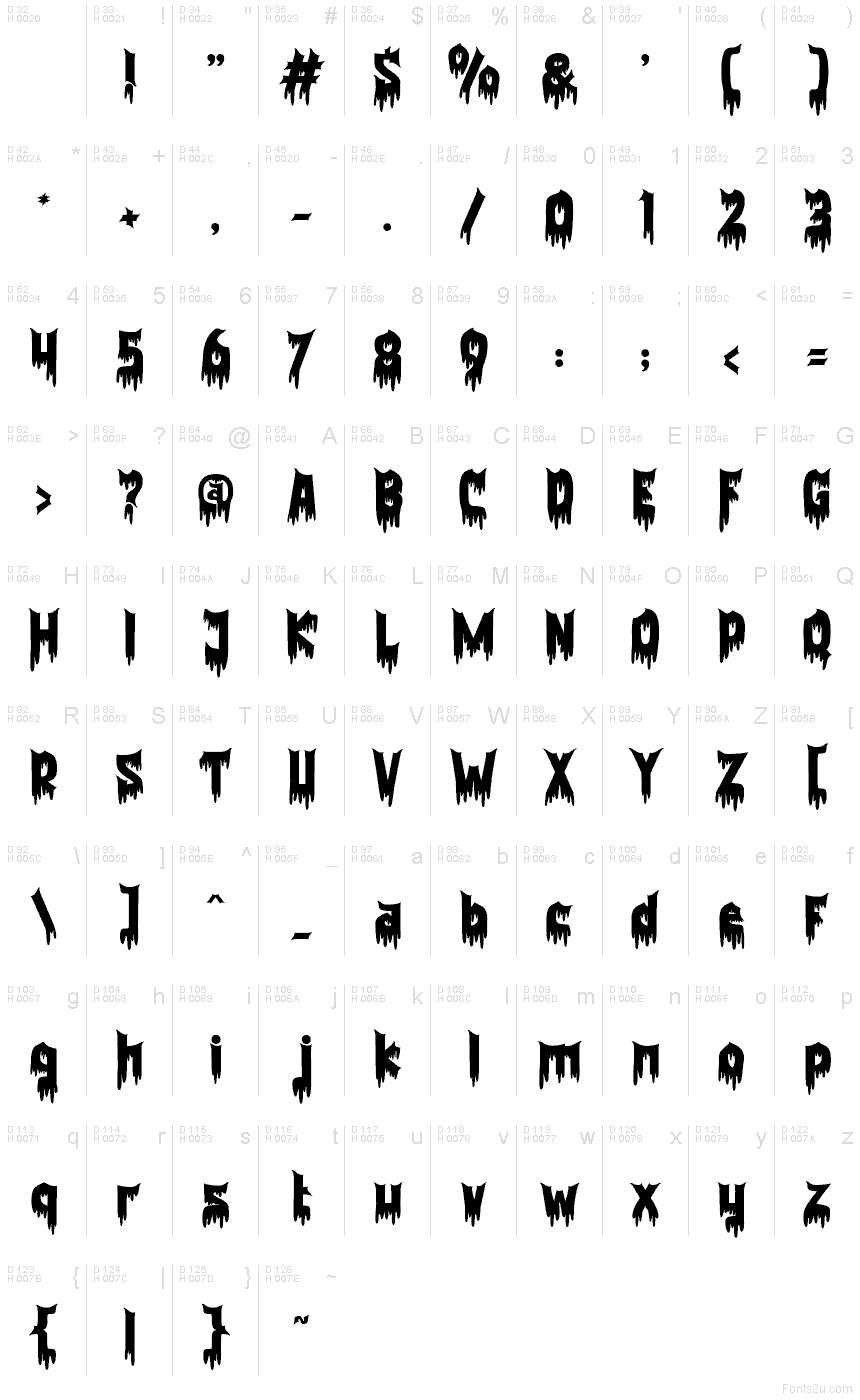
Purgatorie Blood
Purgatorie Blood font by PutraCetol Studio is a free Halloween display font. Every letter looks soaked and dripping, with jagged tops and viscous tails that pool into inky puddles—instant atmosphere without extra graphics. The uneven rhythm and chunky silhouettes read big and loud, giving headlines that sticky, freshly-spilled shock factor.
Using Purgatorie Blood, you can crank up fear factor on haunted house posters, slasher film titles, party invites, escape room signage, gory game logos, and spooky YouTube thumbnails. This free font shines when set oversized with tight tracking; pair it with a clean grotesque sans for the small print to keep things readable while the drips do the drama.